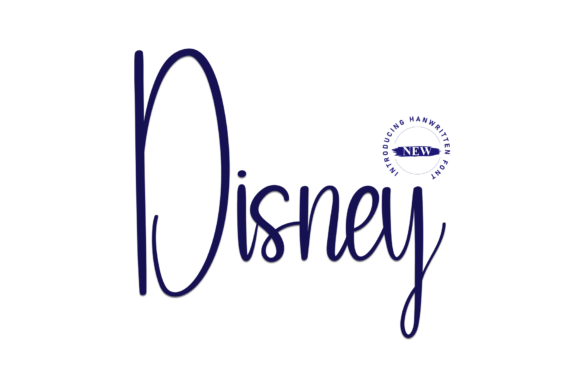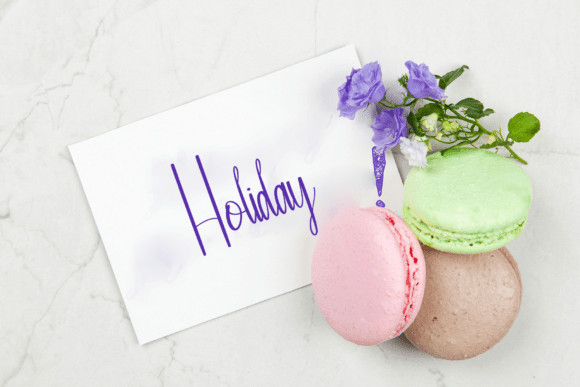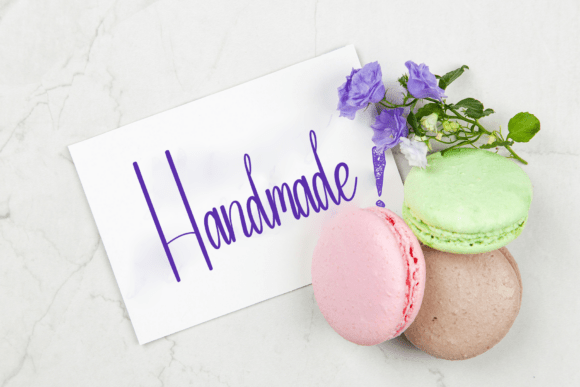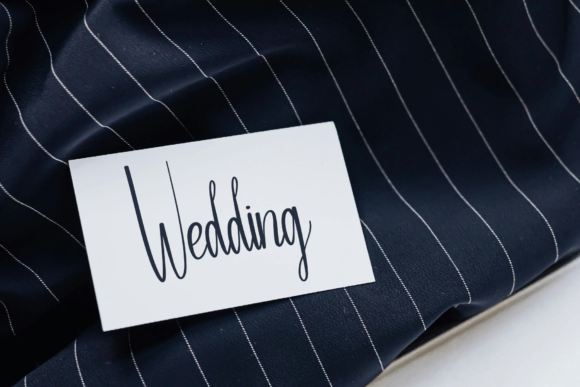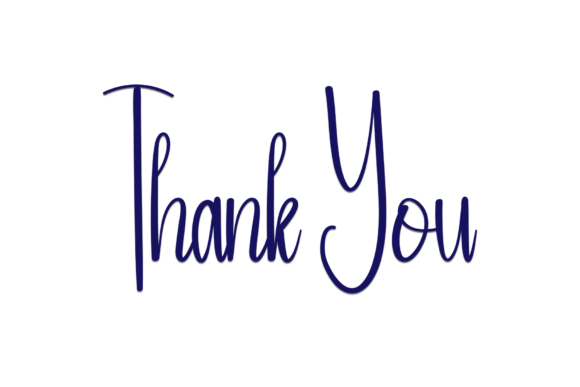
Discover the Magic of Disney Font
Have you ever stared at a blank page, marker in hand, waiting for inspiration to strike? It’s a familiar feeling for creatives everywhere, and it’s exactly this moment that the Disney Font is designed to evoke. This charming handwritten font captures the carefree spirit of a summer afternoon, with its relaxed and sporty feel that’s perfect for anything from branding and logos to wedding supplies and greeting cards.
The Disney Font is more than just a pretty face – it’s a versatile tool that can add a touch of luxury and elegance to even the most casual designs. Whether you’re a seasoned designer or just starting out, this font is sure to become a favorite in your toolkit. With its natural, handwritten look, the Disney Font is the perfect choice for anyone looking to add a little magic to their next project.
Disney Font Key Features
- Font Family: The Disney Font, also known as the Disney Script font, is a custom-designed font created by Disney.
- Unique Characteristics: The Disney Font is characterized by its elegant, cursive script design, with flowing lines and subtle flourishes, giving it a whimsical and nostalgic feel.
- Legibility: The font is highly legible, even at small point sizes, making it suitable for use in a variety of applications, including signage, advertising, and publishing.
Disney Font Review
When I first saw the Disney Font, I was immediately drawn to its whimsical and magical feel ✨. The font is inspired by classic Disney typography and it shows. The designers have done a great job of capturing the essence of the Disney brand, and it’s perfect for projects that need a touch of nostalgia and fantasy.
The font has a wide range of characters, including some fun and unique symbols ✨. It’s also fully scalable, making it suitable for use in both print and digital projects.
- ⚠️ The font may be too playful for more serious or corporate projects, where a more professional font may be preferred.
- ⚠️ Some users may find the font too cursive or decorative, which could make it difficult to read in certain contexts.
Overall, the Disney Font is a great choice for projects that need a touch of magic and whimsy. While it may not be suitable for all projects, it’s a fun and unique font that’s sure to add some excitement to your design.
Some common use cases for the Disney Font include:
- Creating magical and whimsical designs for children’s products or services.
- Adding a touch of nostalgia and classic charm to branding or marketing materials.
- Designing invitations, posters, or flyers for events or parties.